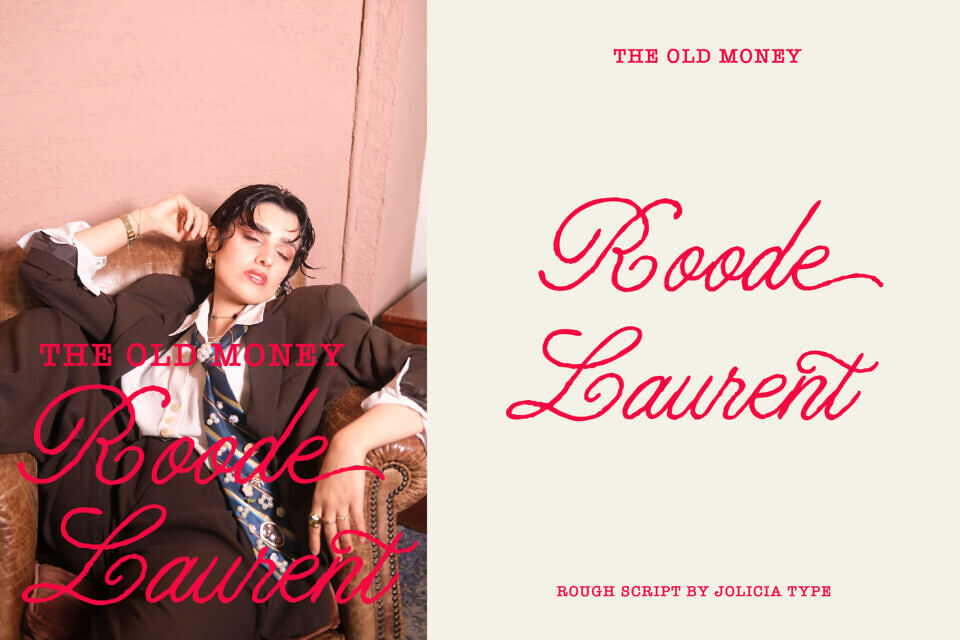
Royale Victoria is a expressive handwritten script font that captures the beauty of authentic pen strokes with a rough, textured finish. Inspired by vintage sign painting, classic calligraphy, and modern brush lettering, Royale Victoria brings a perfect balance between refinement and spontaneity.
The font features graceful connections, stylish swashes, and organic stroke variations that add depth and authenticity to any design. Whether used for branding, logos, packaging, editorial layouts, social media graphics, wedding stationery, or signature-style artwork, Royale Victoria creates a memorable visual impact with its charming handcrafted appeal.